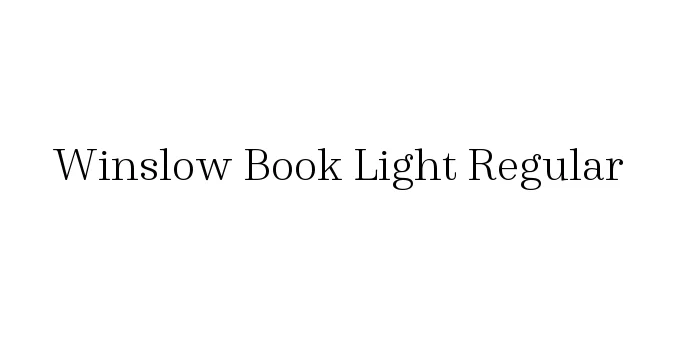
Winslow Book Light Regular
Designed by Kimmy Kirkwood
Winslow Book Light Regular is a sophisticated serif typeface designed by Kimmy Kirkwood of Kimmy Design. It represents a refined balance between classic book typography and modern editorial aesthetics. Characterized by its high contrast and graceful strokes, this weight offers a delicate and airy feel that maintains exceptional legibility even in smaller point sizes, making it a staple for high-end design projects.
The Winslow family was built to provide a wide variety of options for designers, ranging from heavy display weights to these lighter, more academic styles. The Book Light Regular variant specifically focuses on the rhythm of the line, utilizing sharp serifs and elegant curves to create a timeless look. It has become a popular choice for those seeking to bridge the gap between traditional 20th-century type and contemporary digital clarity.
Winslow Book Light Regular Best Uses
Perfect for magazine layouts and high-end print publications where elegance is required.
Specifically engineered for body text in novels, essays, and academic journals.
Ideal for luxury brand identities and sophisticated corporate stationery.
Effective for clean, readable blog posts and digital storytelling platforms.